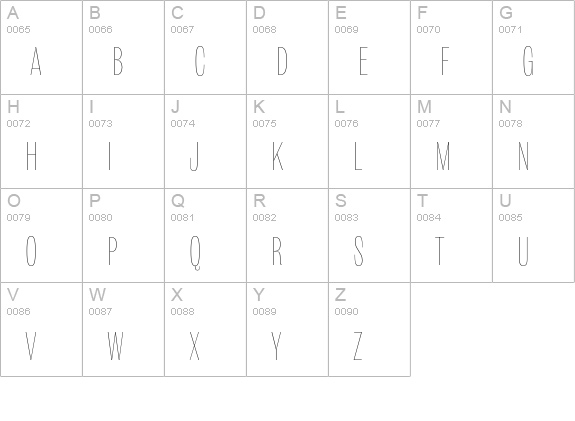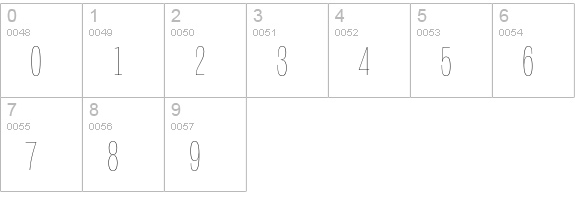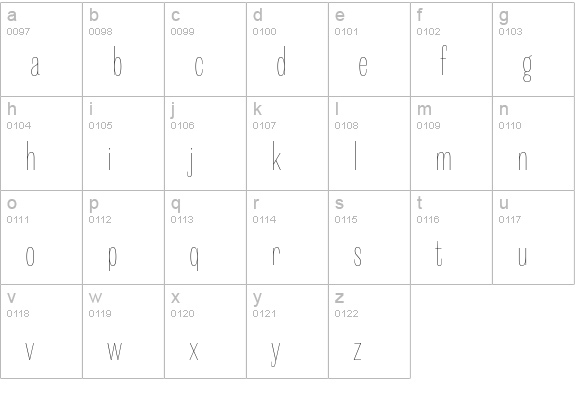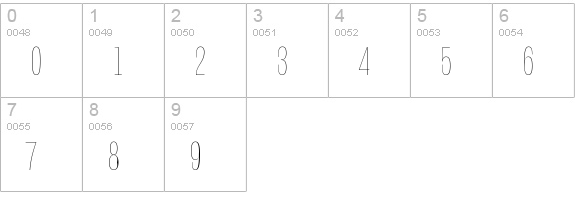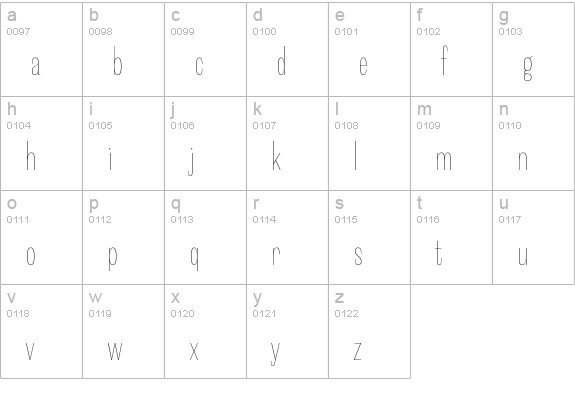
Shiva Regular is the standard, neutral variant in the Shiva typeface family \xE2\x80\x94 well suited to general body text, paragraphs, and standard typographic work.
Shiva Regular font is a stylish and versatile typeface that exudes elegance and modernity. With its clean lines and balanced proportions, this font is perfect for a wide range of design projects, from branding to editorial design. The versatility of Shiva Regular font makes it a great choice for both print and digital applications. One of the best things about Shiva Regular font is that it is completely free to download. You can easily access this high-quality font at FontsMarket.com, where you can quickly add it to your font library and start using it in your projects right away. Whether you are a professional designer or a hobbyist, Shiva Regular font is a valuable addition to your font collection, offering endless creative possibilities. Embrace the elegance and sophistication of Shiva Regular font in your next design project and make a lasting impression with its timeless appeal.